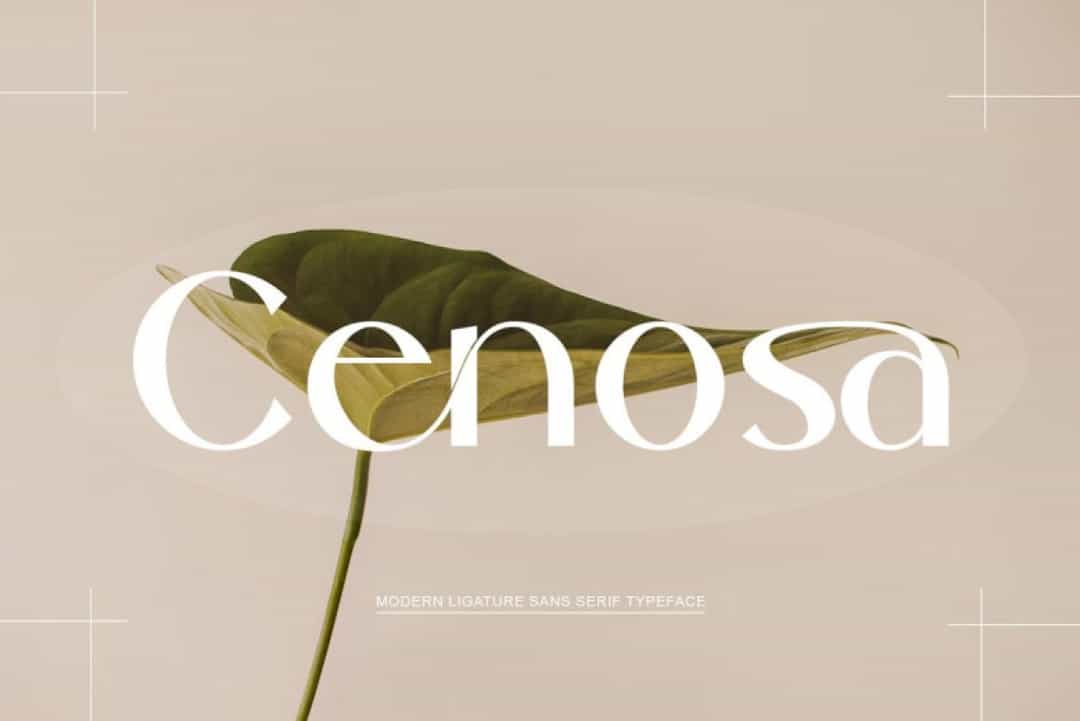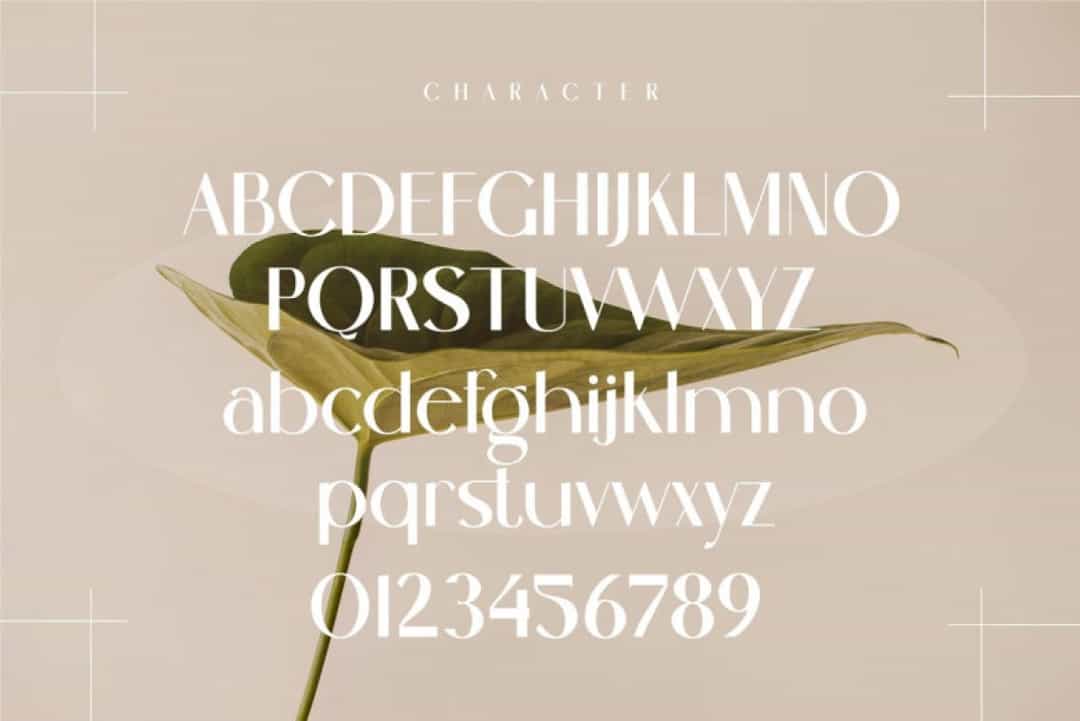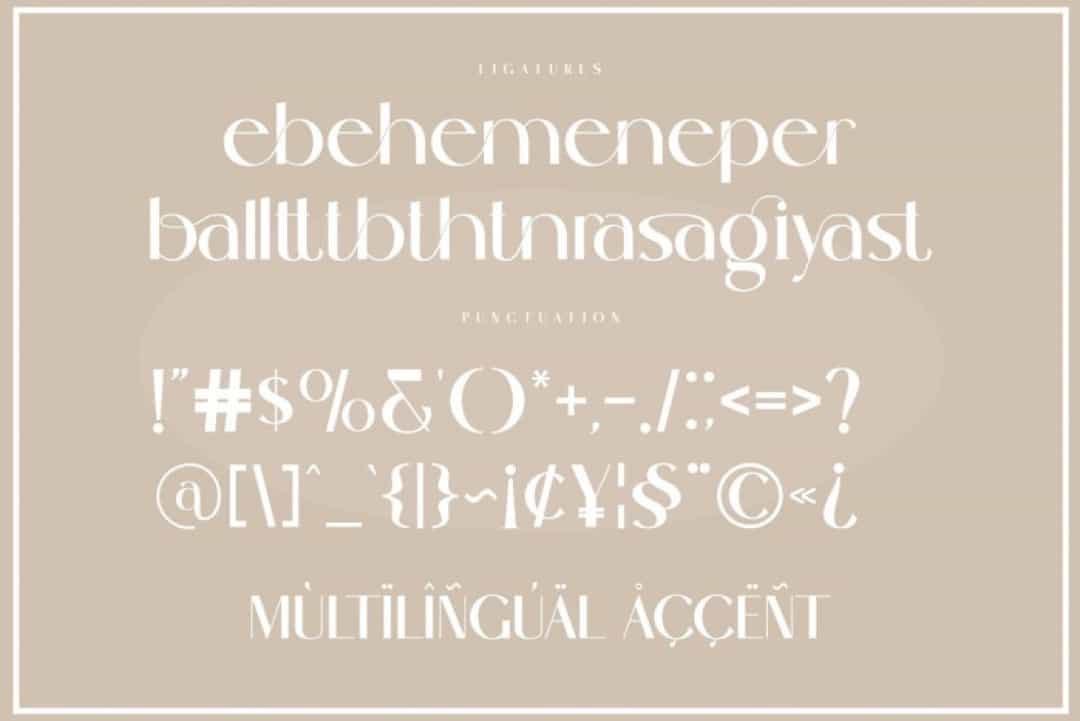
Cenosa Sans Serif font is designed to be simple, clear and visually elegant – ideal for elegant-themed projects such as logos, magazines and titles – especially when creating modern designs with simple text such as logos.